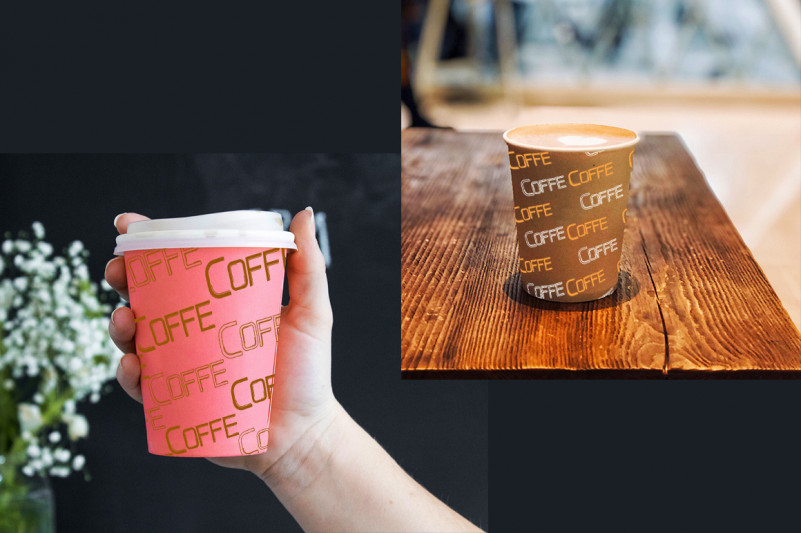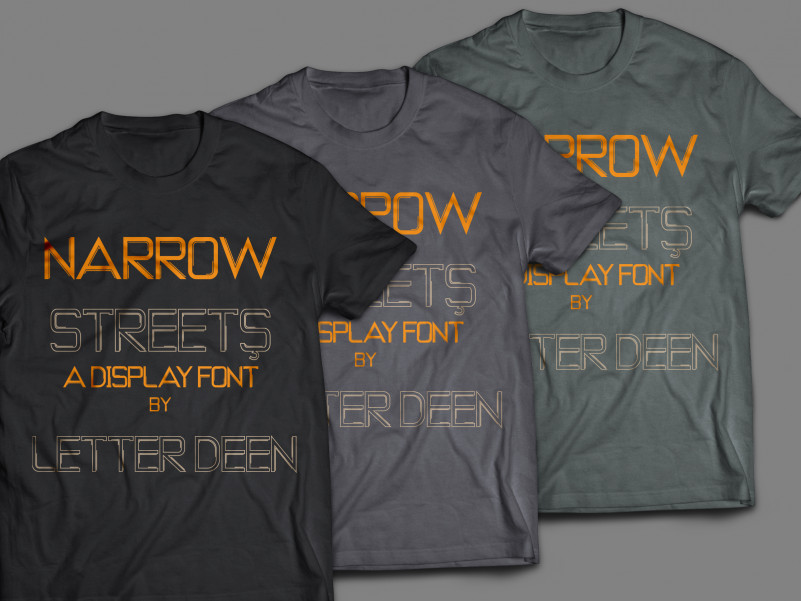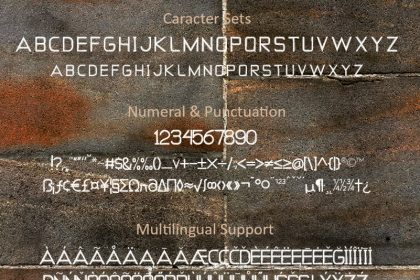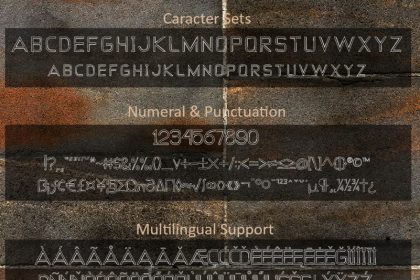
NARROW STREETS Display Font
NARROW STREETS is a new display font. Include NARROW STREETS-REGULAR & NARROW STREETS-OUTLINE. Font with multilingual support.
NARROW STREETS is perfect for fashion magazines, product watermarks, branding projects, logo, wedding designs, social media posts, advertisements, product packaging, product designs, label, photography, watermark, invitation, stationery and any projects.